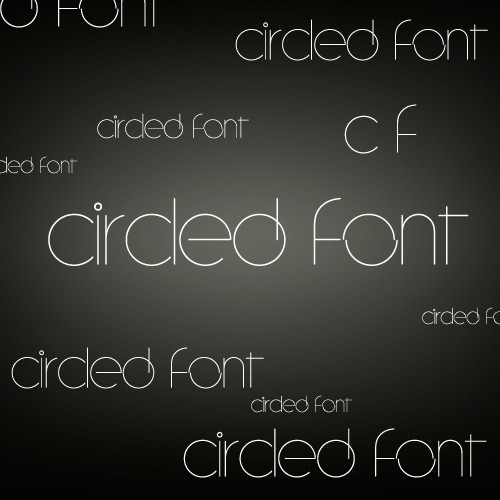
Knarf art fontthis is my first font i hope you like it
the spacing between the letters is a little to big because
i dont really know how the font making programs work sorry for that.
Very simple but it attracts me at all . Thanks for the share.
I love it!
Can i use to create a logo to a client?
In a logo, i can´t insert the credits. But, i can credit you in my portfolio.
May i?
Le me know...
parodif [2016-04-05 15:48:19 +0000 UTC]
I would like to use this typeface for a personal logo, will send you the grpahics if I have permission to use it, thanks.
Franccesca
chikkiiemeen [2015-11-09 11:09:36 +0000 UTC]
RRRrrrrr Can I use this for font ? Please. Thank.
TDK-OZ [2015-10-03 18:10:40 +0000 UTC]
Hey, this is GREAT! I'd like to use it in my logo. My project is an original web series
Agudinor [2015-09-13 01:49:20 +0000 UTC]
Gracias, usare este increible tipografía para un Logo
niki-17 [2015-09-02 11:05:39 +0000 UTC]
hey the font is amazing, can i use it for my design project ?
thanks
Whytmedia [2015-08-08 11:46:21 +0000 UTC]
Hi, I love the font. please id like to use it on a logo.
will follow the terms and conditions.
aperissutti [2015-07-21 16:37:36 +0000 UTC]
i want to use these amazing font on a logo, can i have the download link?
thanks, amazing font!
drgoble [2015-06-12 11:18:22 +0000 UTC]
I love your lowercase font and would like to possibly use it in my logo. Do you have an uppercase font set also?
abietams [2015-06-10 08:43:18 +0000 UTC]
Wow, i love it. Wold you mind if i use it for design?
Janeyung [2015-02-10 05:50:18 +0000 UTC]
i like your font design, may i use it for my college project?
sahls [2015-01-19 19:35:28 +0000 UTC]
Hey Knarfart
I love your font. Can I use it in my logo as well?
Stay a Pro
Danniboi132 [2014-12-12 06:28:17 +0000 UTC]
Hey! I love this font! Would you mind if I used it for my YouTube name? Pretty please?
emeseszoke [2014-08-30 16:45:09 +0000 UTC]
Can I try out your font for my logo? This is a very nice and cool font!